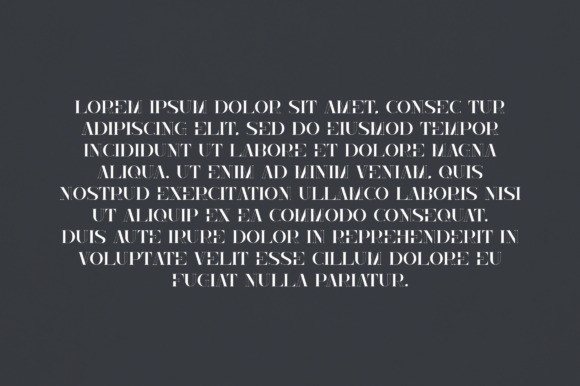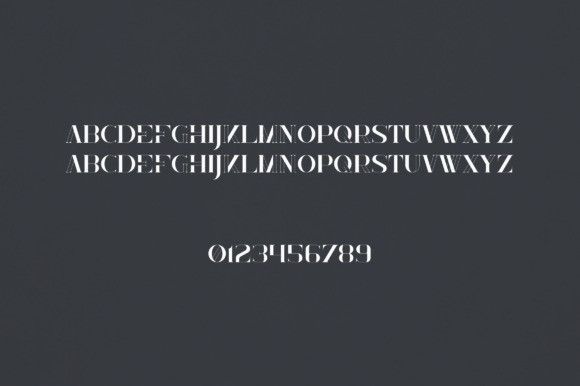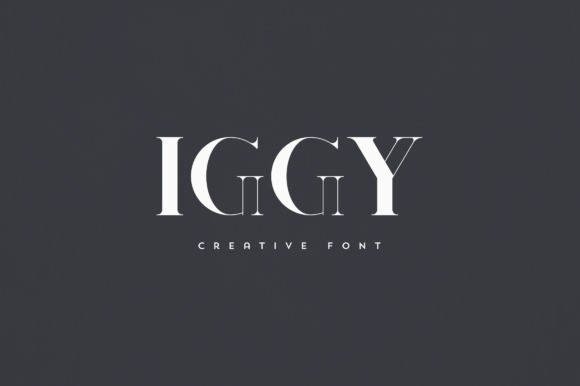
Iggy Font
Iggy Font is an elegant and versatile display font that will make your typography truly unique! It will enchant every logo, branding, headline, or plain text!